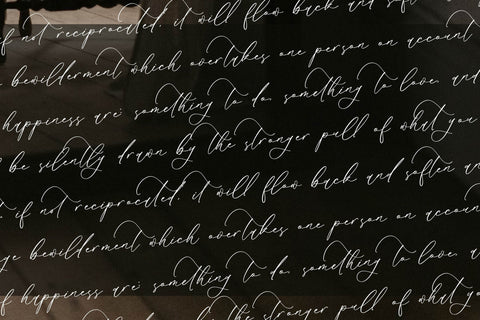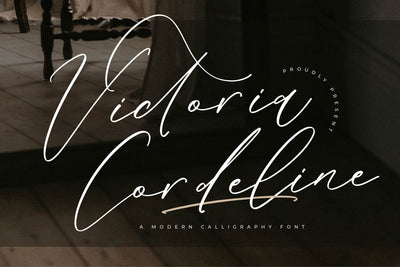
Victoria Cordeline - Modern Calligraphy Font
Proudly present Victoria Cordeline - Modern Calligraphy Font , created by Storytype,
A luxury script that has own unique style & modern look.